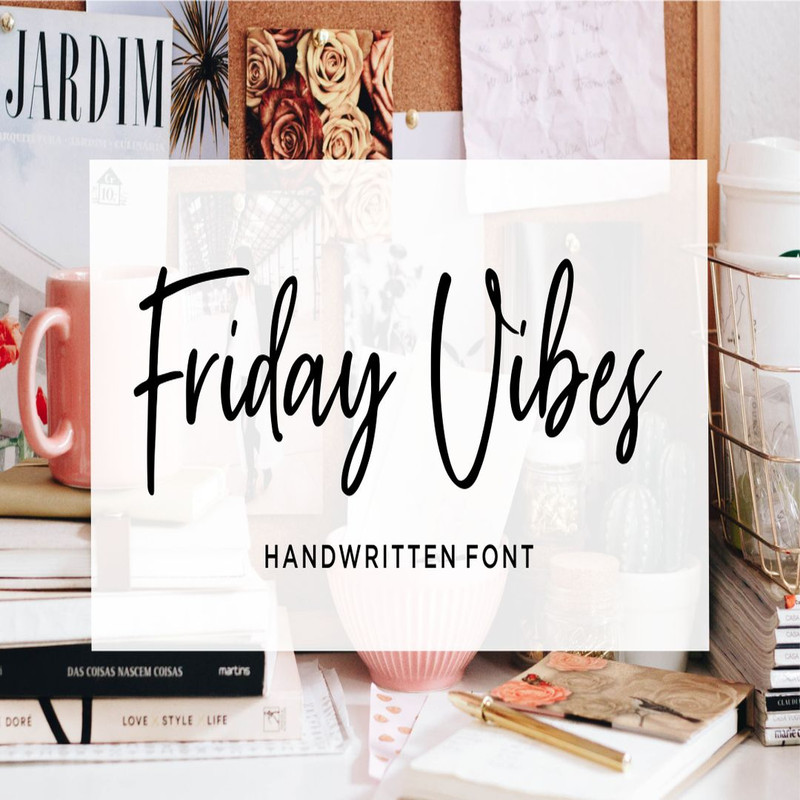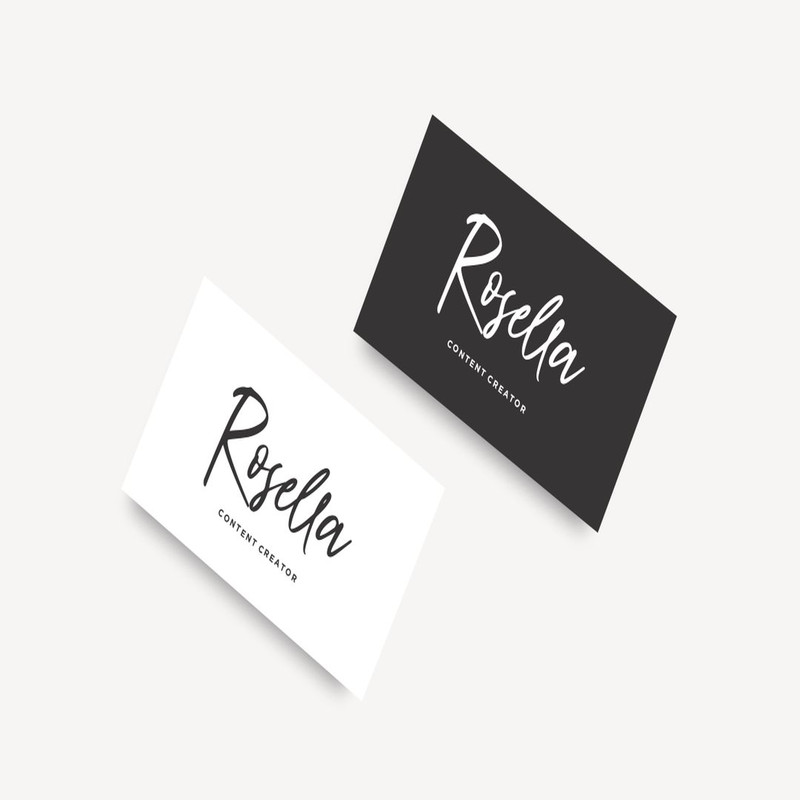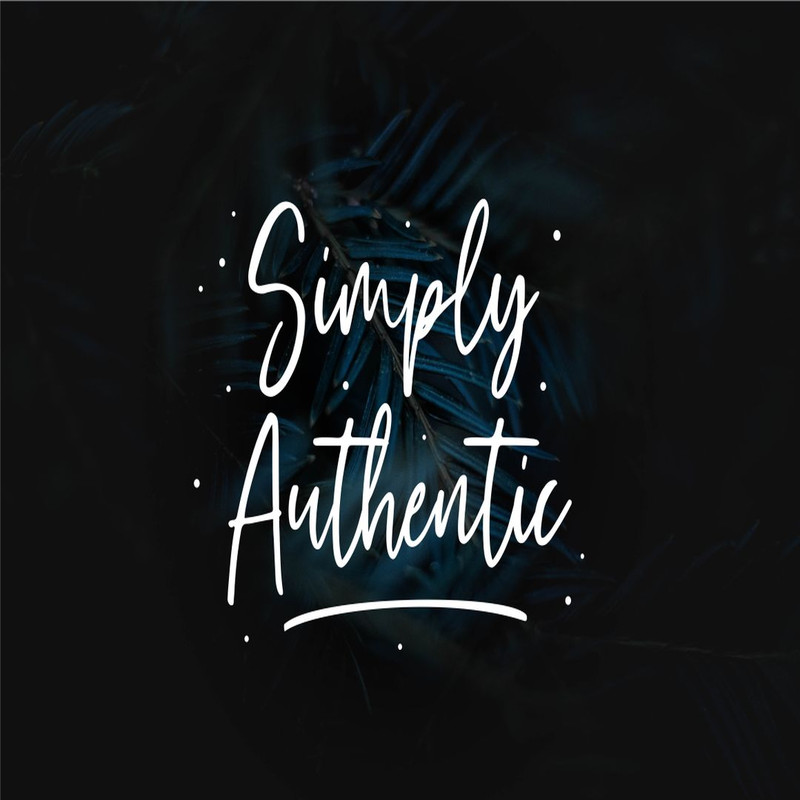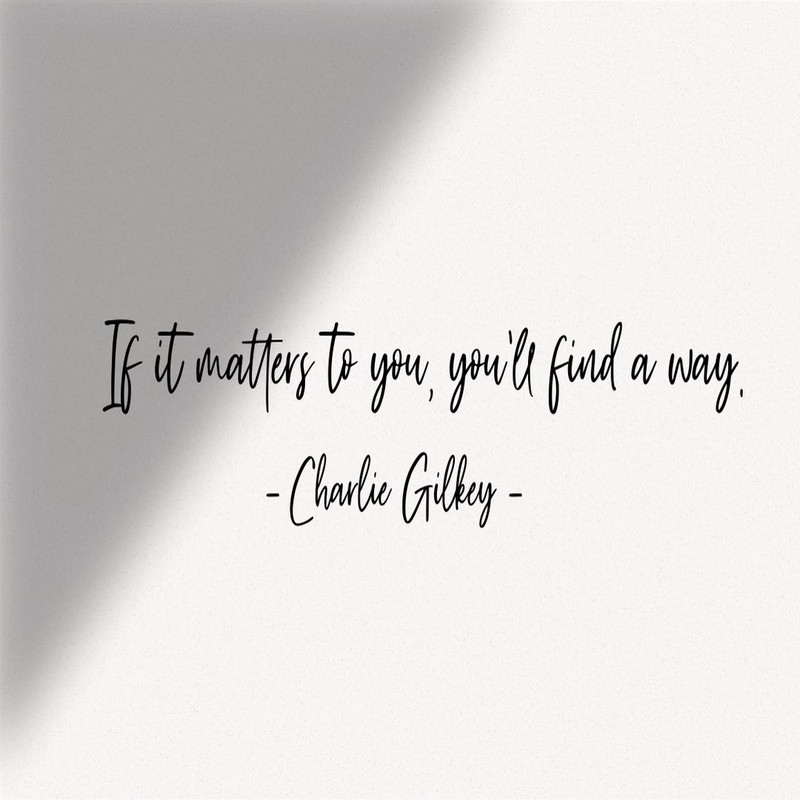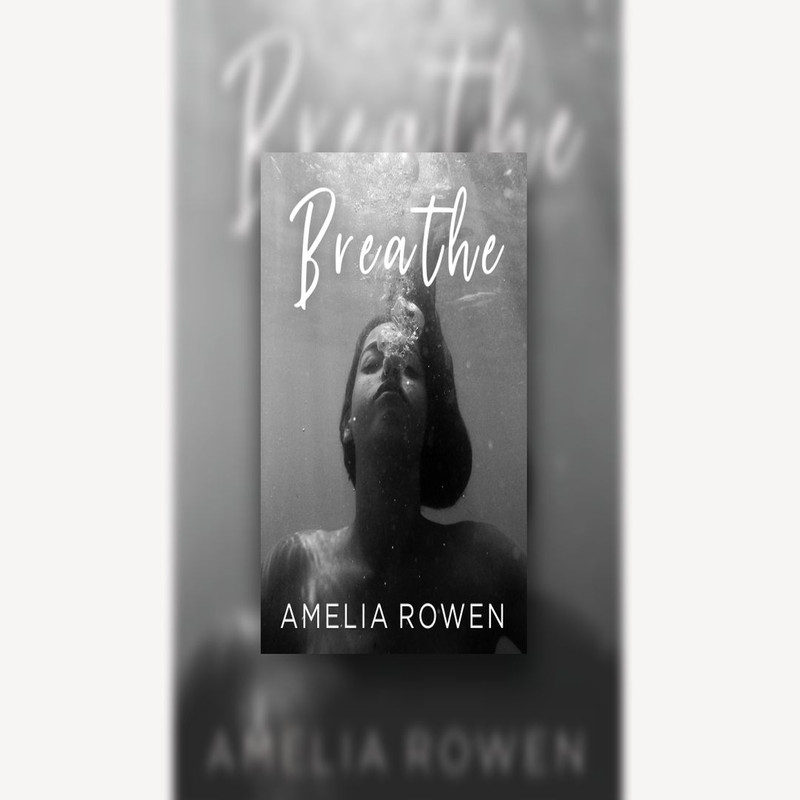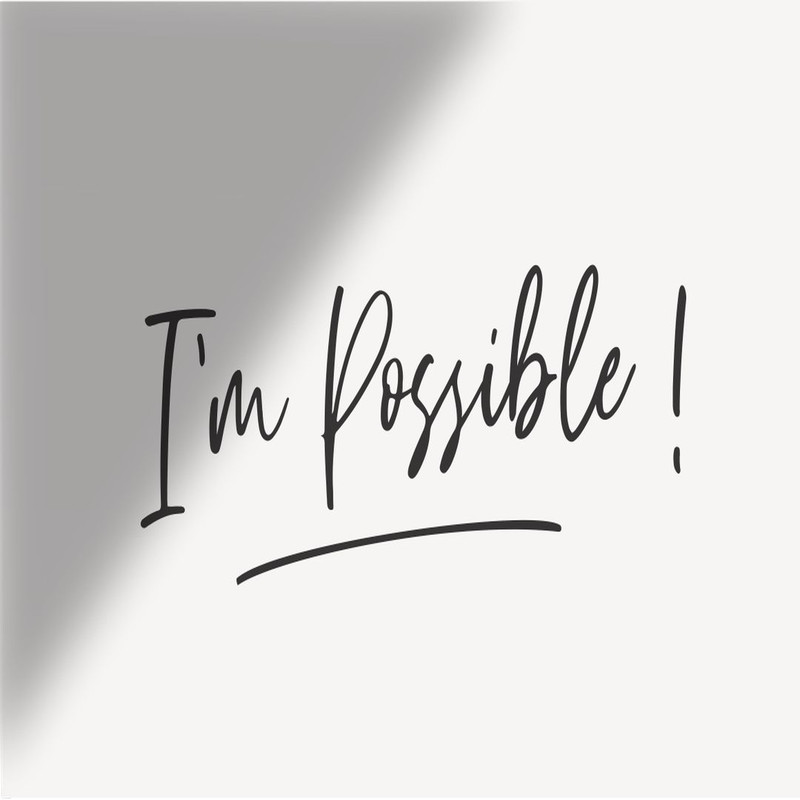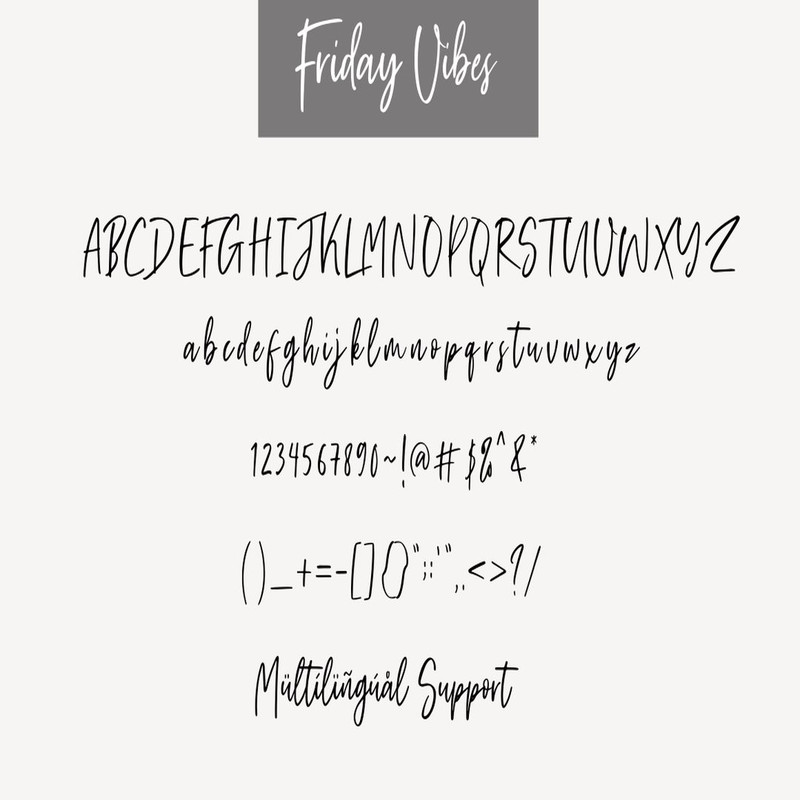
Friday Vibes Trending Fonts - Digital Font
Introducing Friday Vibes – a new modern & fresh handlettering font,make this font looks natural, modern, and perfect for any awesome projects.